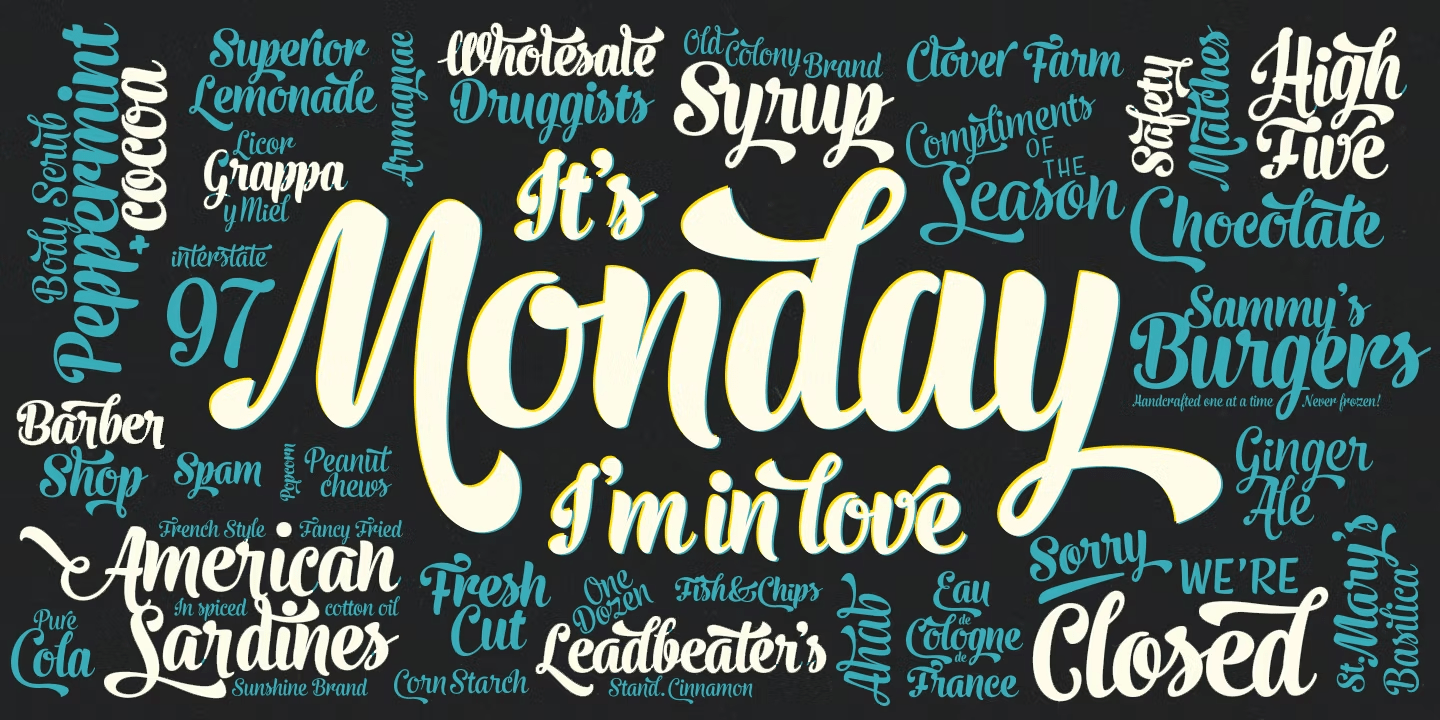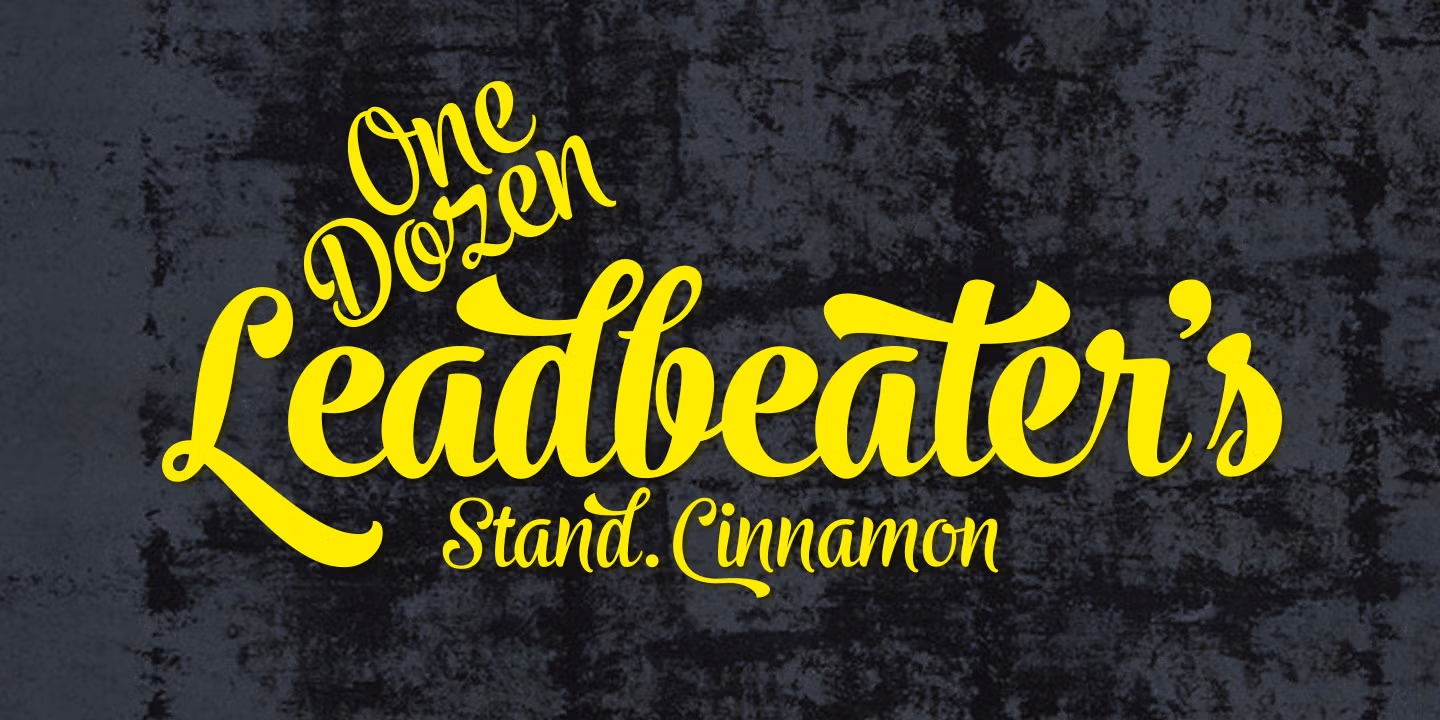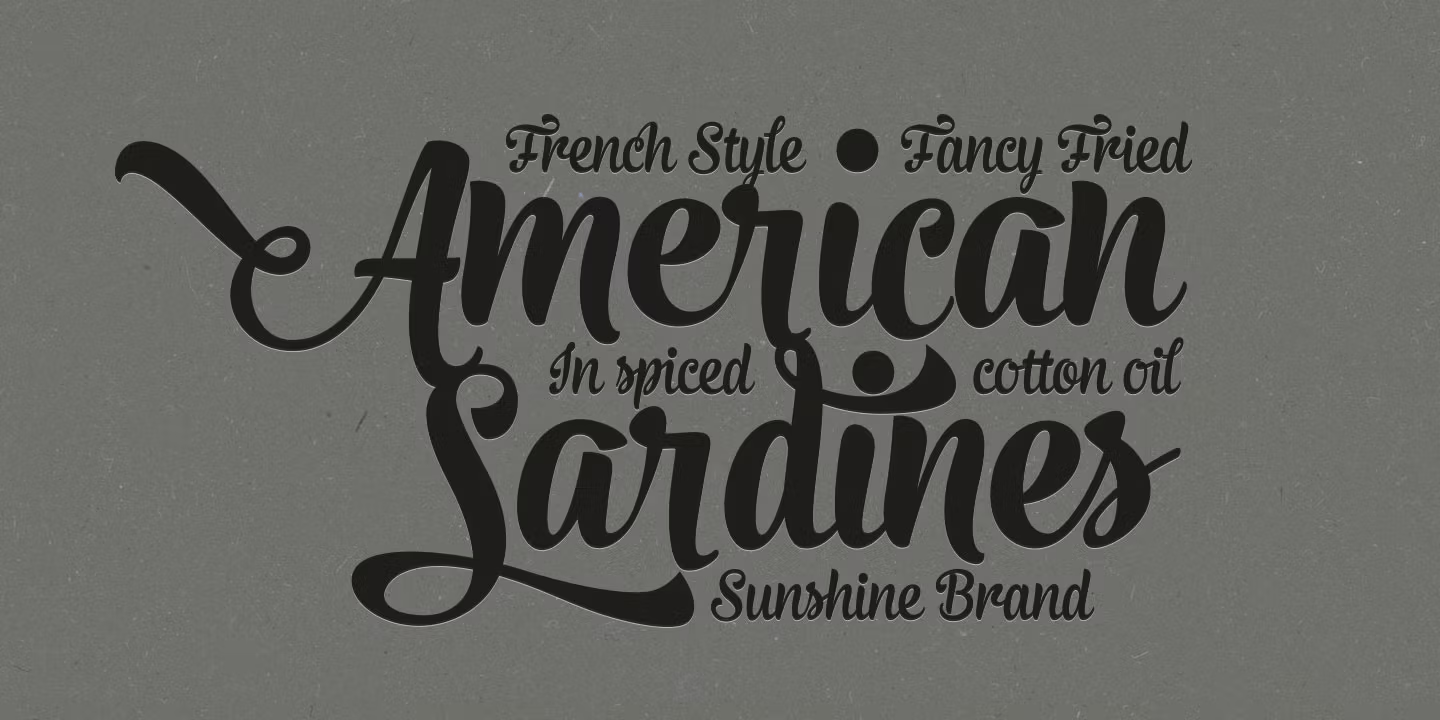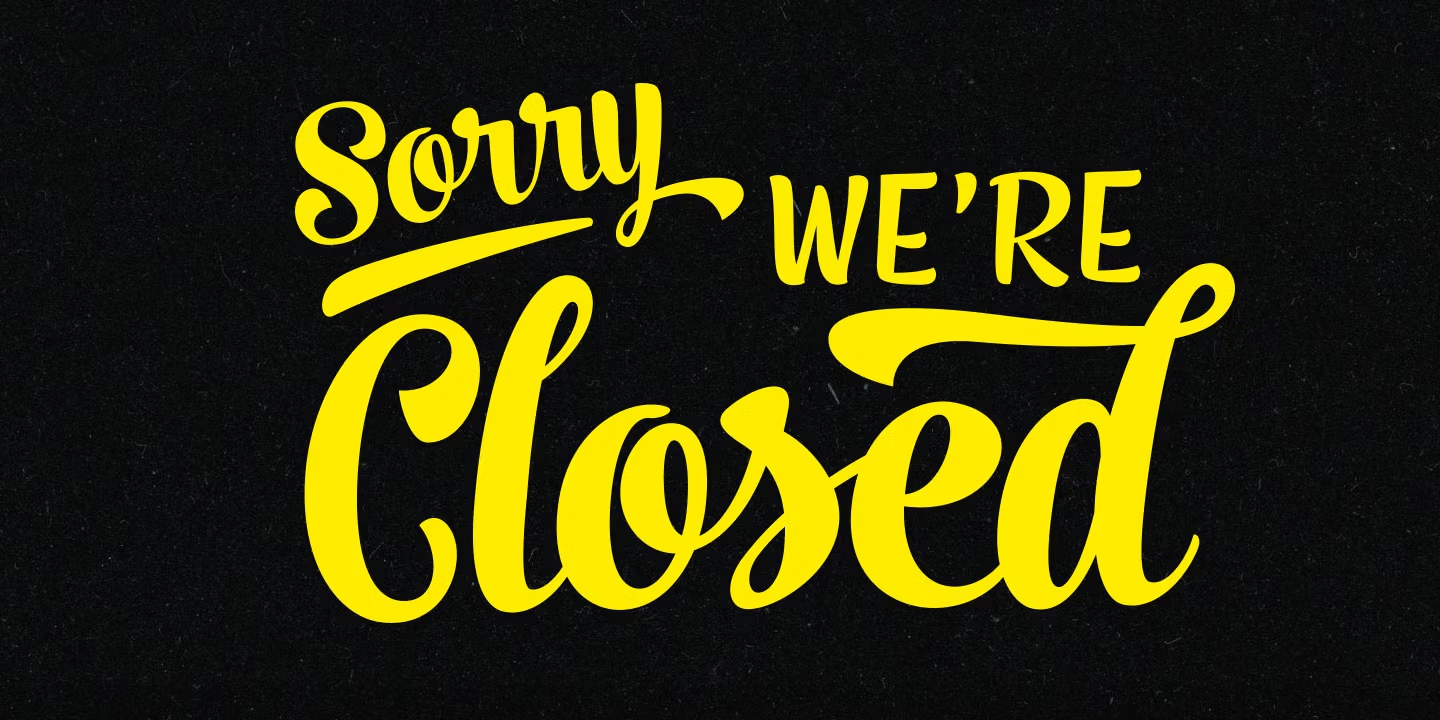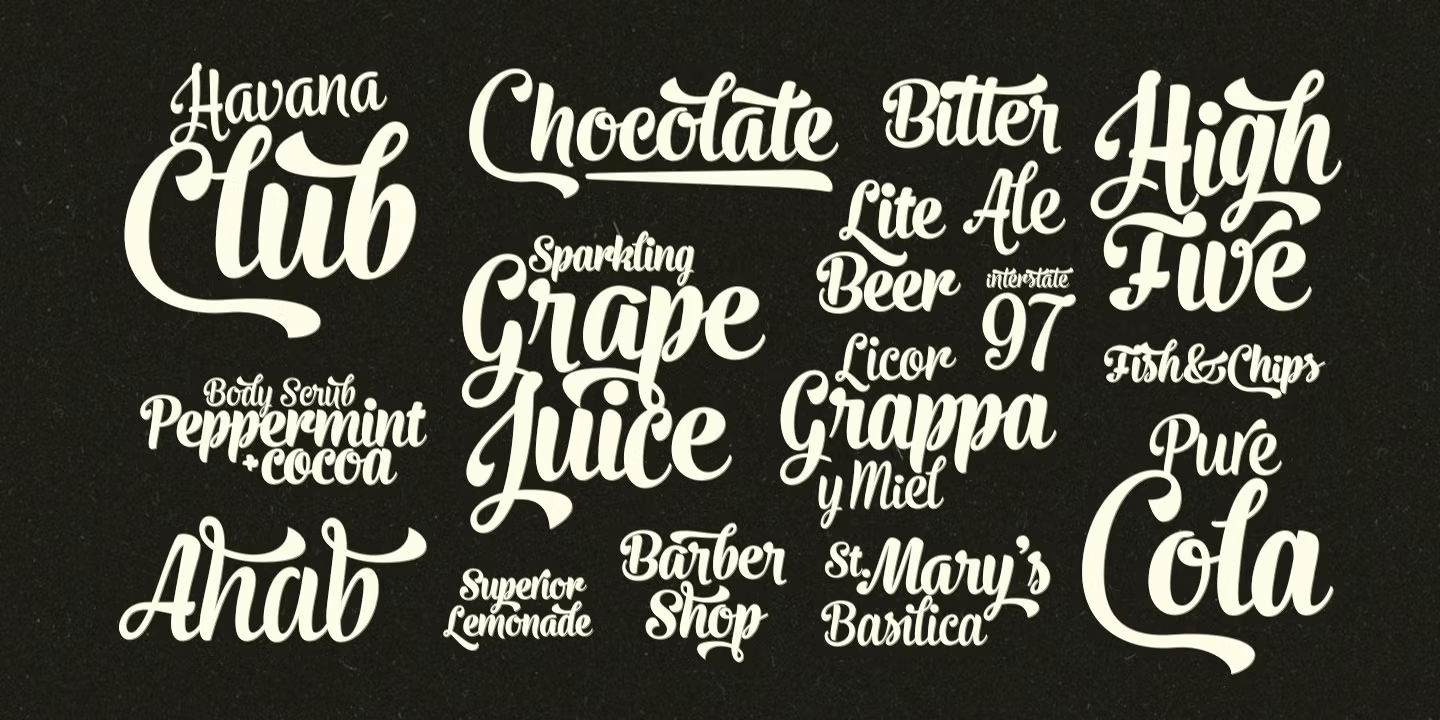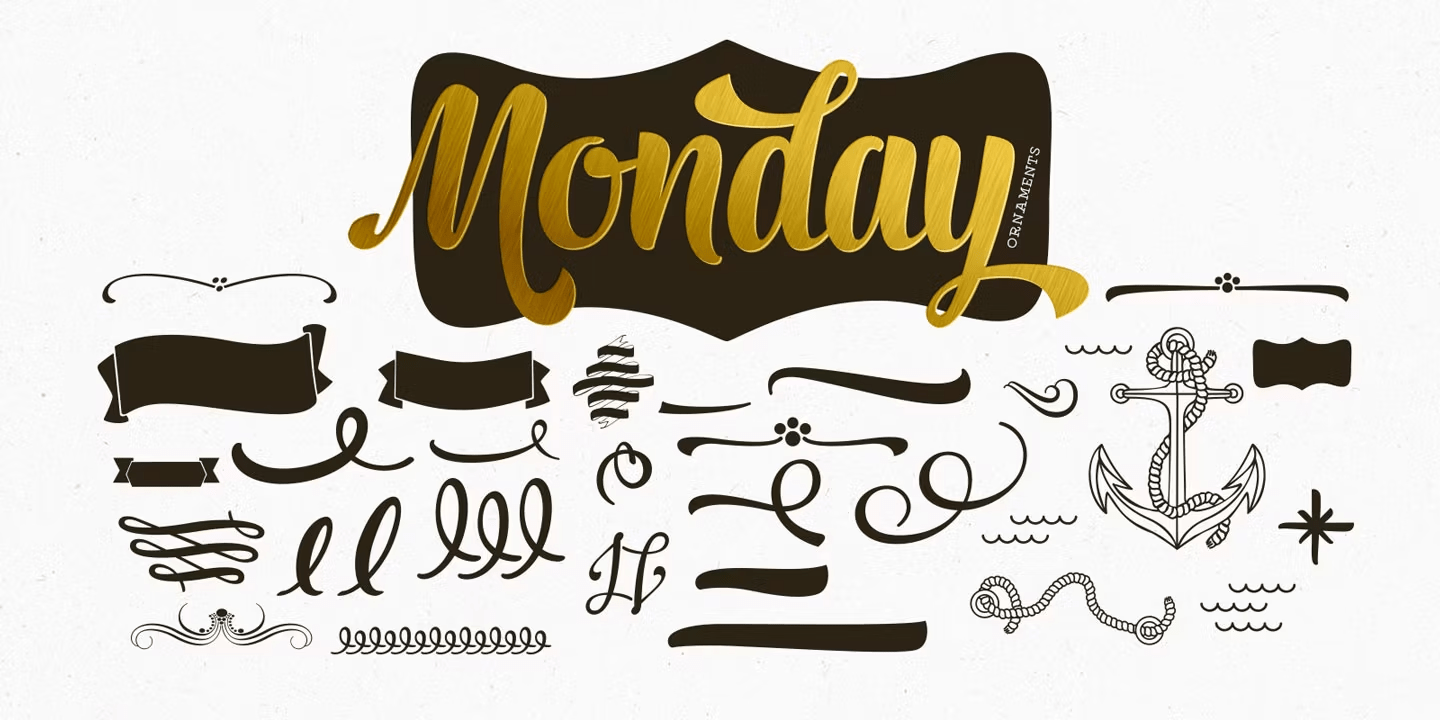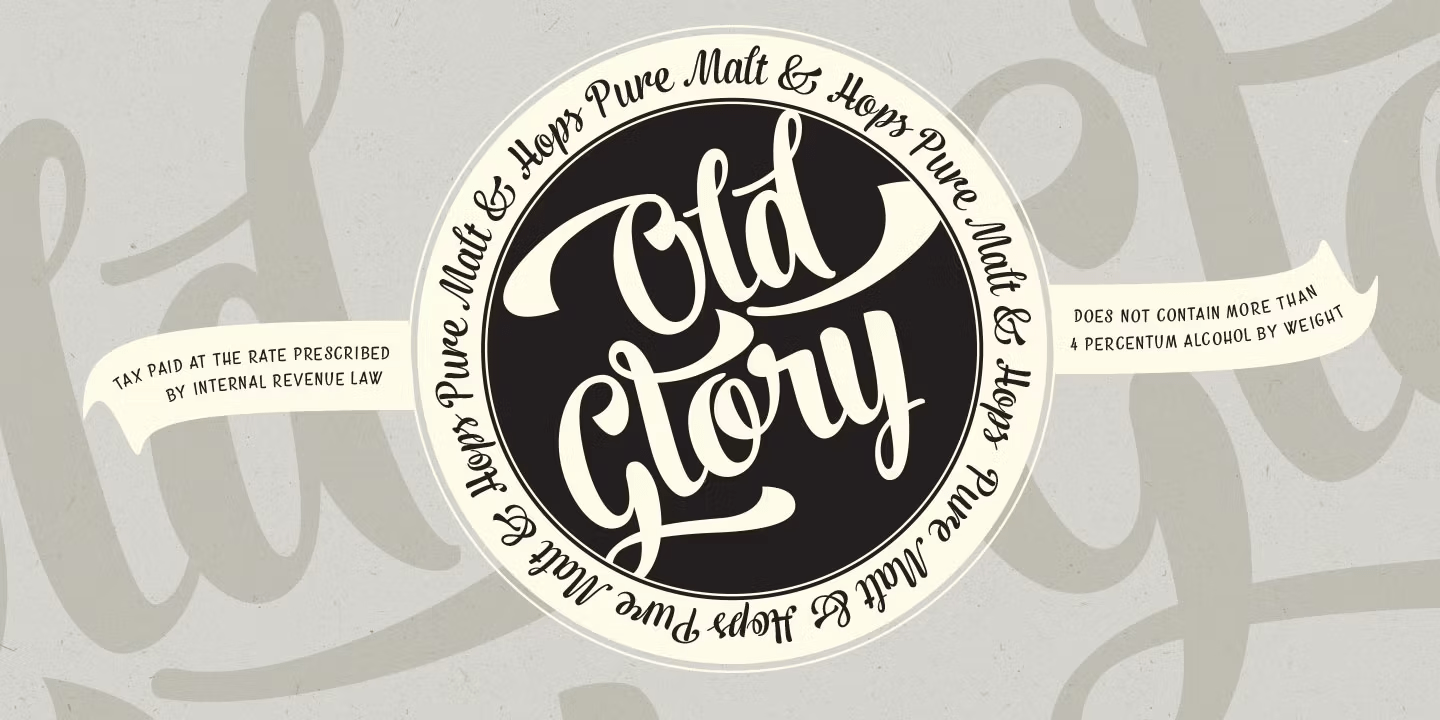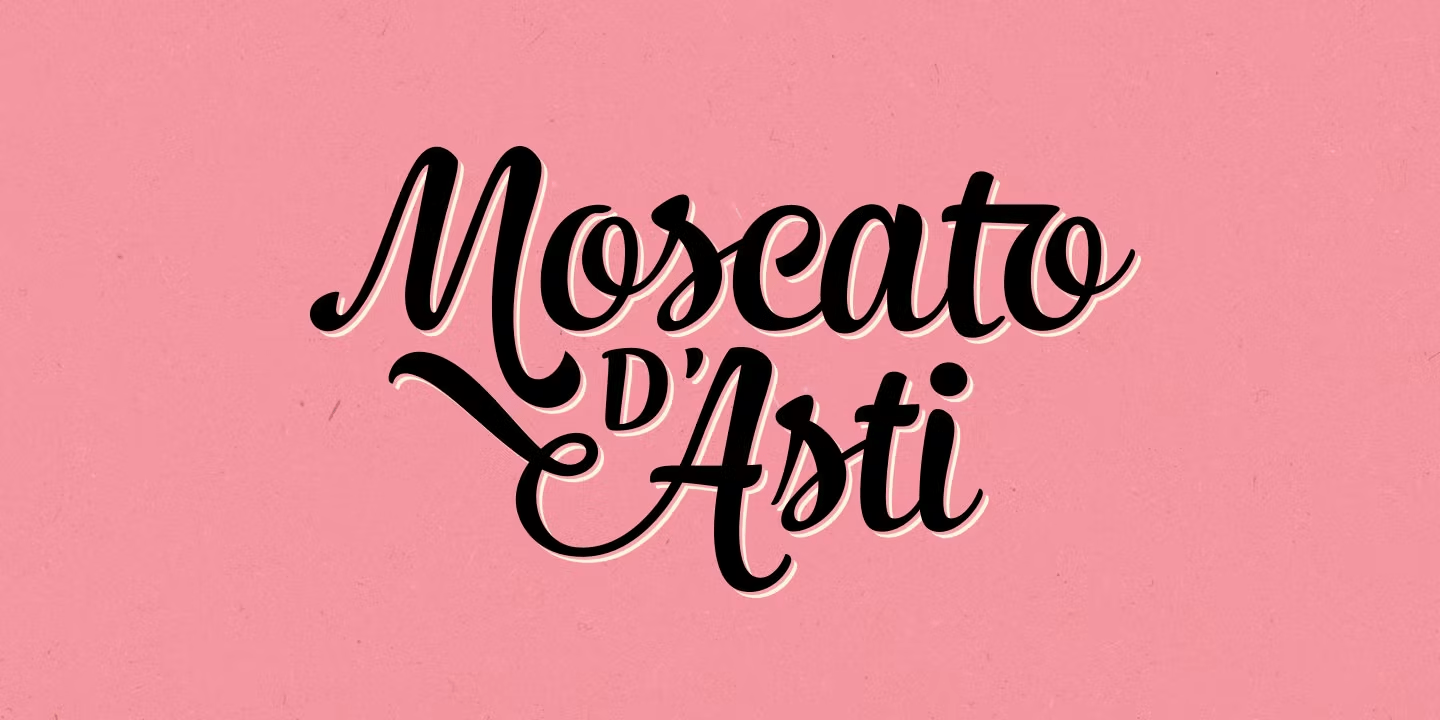
Monday
Monday is a bold and strong script family of two weights and a matching ornament set. Monday has a polished 1950s hand lettering feeling to it and it is ideal for logo, packaging and brand design purposes.
Monday is equipped with plenty of alternates and features: To activate the alternates click on Swash, Contextual, Stylistic or Titling Alternates or Lining Figures in any OpenType Savvy program or manually choose from even more alternate characters from Glyph Palette. If you need to write in caps Monday pairs up nicely with Peaches and Cream Caps.
Monday is loosely based on Fenotypes earlier release No. Seven.